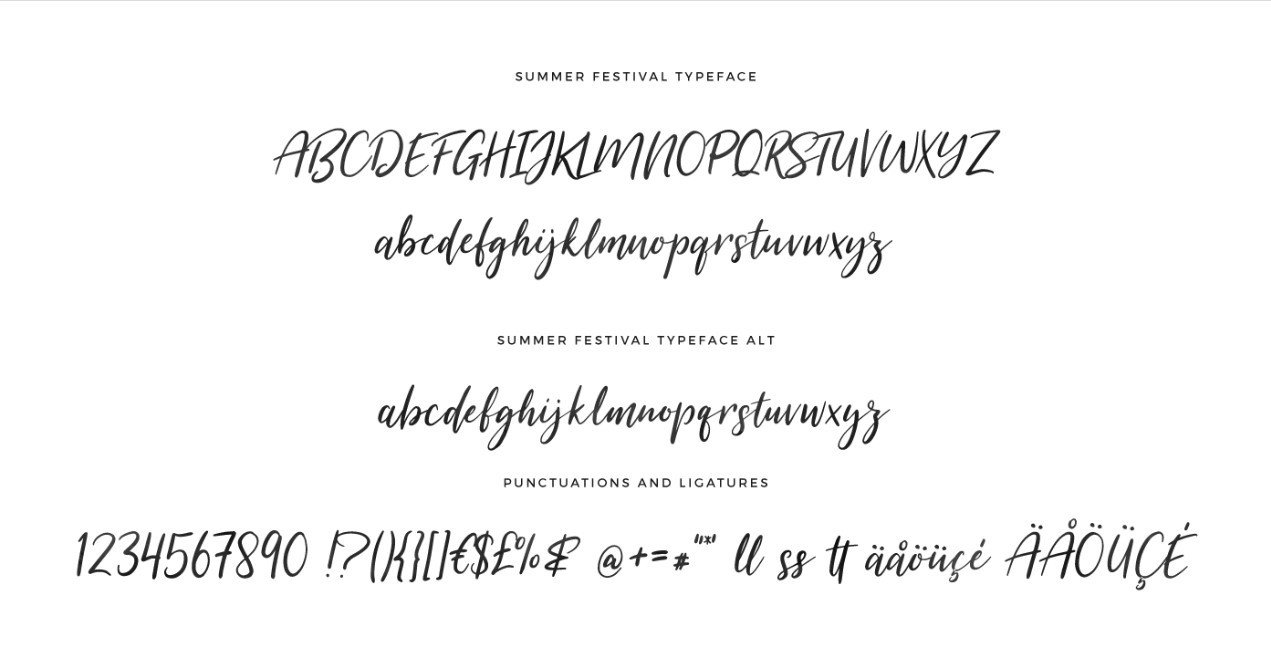
Summer Festival Font
The font Summer Festival Font is a contemporary script font created for creating stunning content. It can be used for playing cards, invitations, logos, and more. This font includes both uppercase and lowercase letters, symbols, and ligatures.
This festival exninja script font comes with a fantastically stylish design. That makes it appropriate for all kinds of print and digital designs.
Style of Summer Festival Font